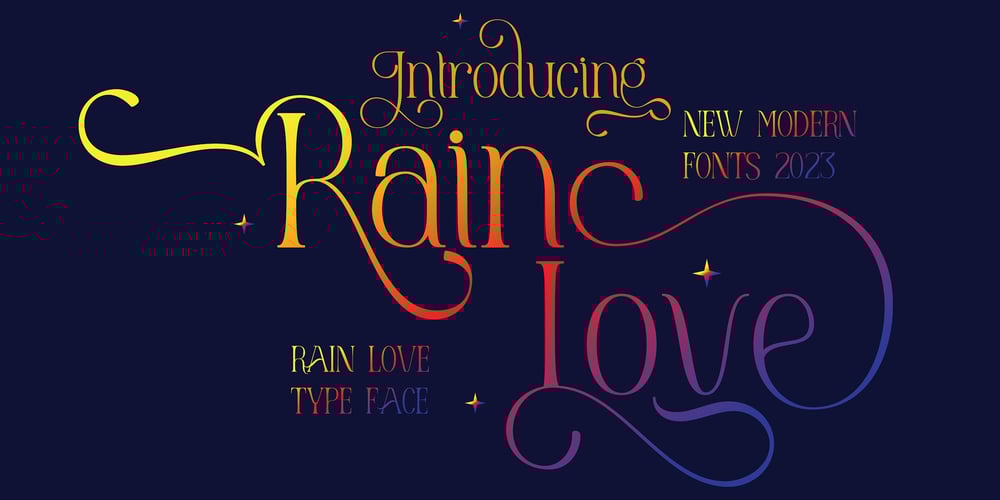
Rain Love Font Family was designed by Ibram Syah and published by Jehansyah. Rain Love contains 1 styles and family package options. Rain Love is an elegant and modern script font with a luxurious feel. It is suitable for all titles or large writing, e-mail, magazines, book titles, movies, notes, brands, logos, and much more.This font is PUA encoded, which means you can access all of the glyphs and swashes with ease!